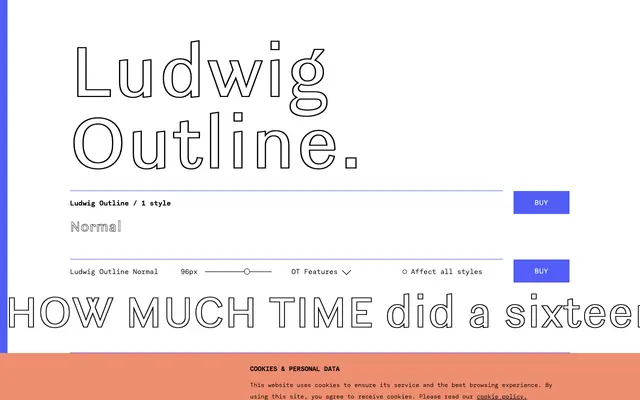
Ludwig Outline
An outline display variant of Fred Smeijers' Ludwig grotesque, drawn from early 19th-century German sanserif models and released as a single Normal style in 2019.
Derived from the Ludwig text family, this outline cut strips the grotesque back to its contour, making it suited to packaging, posters and headline work where open letterforms can breathe. Ludwig itself draws on the earliest German grotesques rather than later rationalist revivals, giving it a slight irregularity that distinguishes it from smoother neo-grotesque alternatives. The outline version was designed alongside Ludwig Shaded between 2007 and 2009 but held back until a fresh release in 2019.
Ludwig Outline is a display variant of the Ludwig grotesque family, rendered as an outline form intended for headline and decorative use rather than text setting. Its grotesque foundations are rooted in early 19th-century German sanserif models.